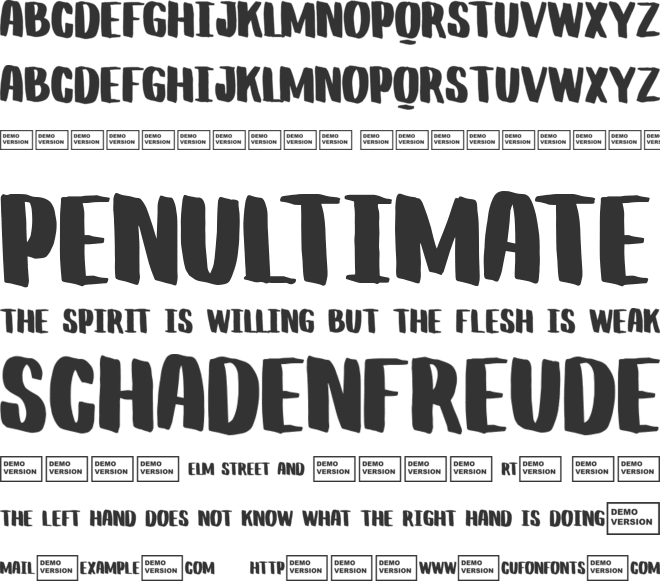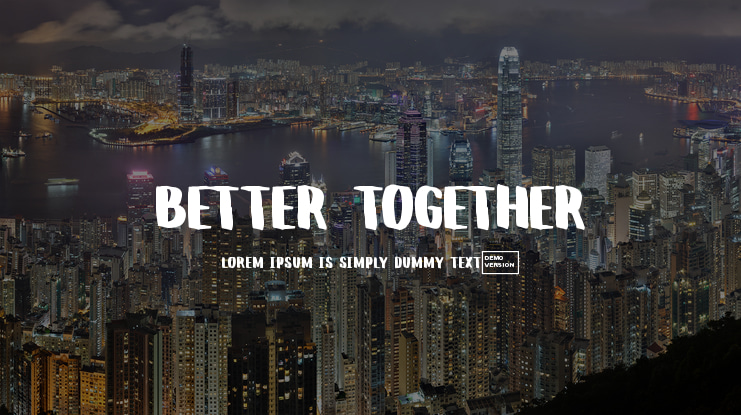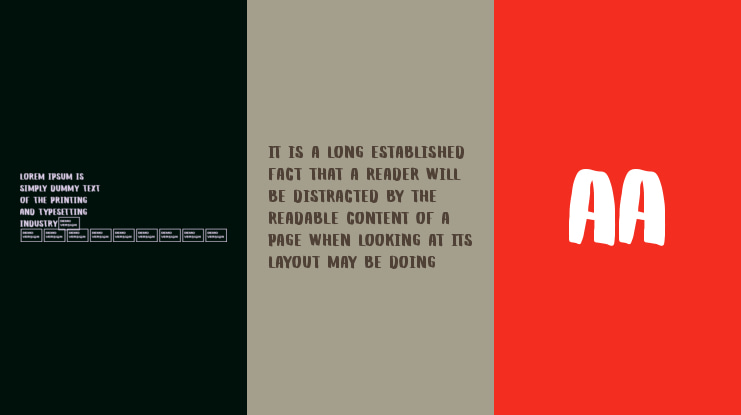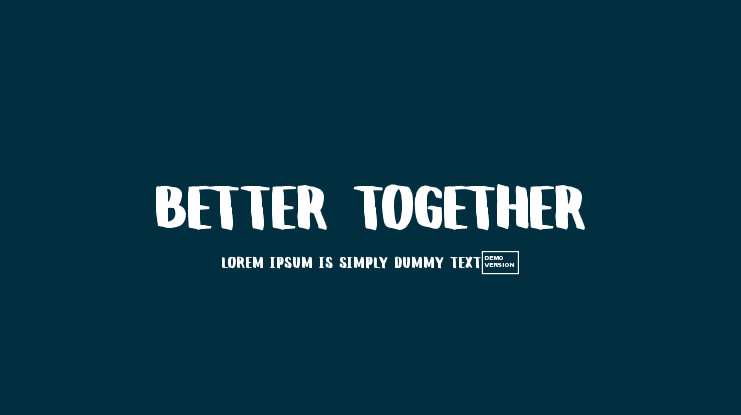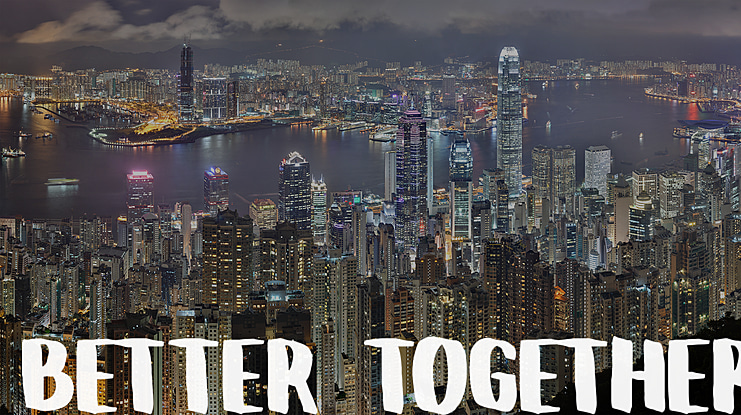
Better Together Font
--- Better Together Caps is one of 4 fonts of Better Together Family. Its a bold Uppercase font which is indispensable in all occassions where eye-catching headline needed. Full version of Better Together Caps includes cyrillic and international characters that support most European languages. Hope you like it!